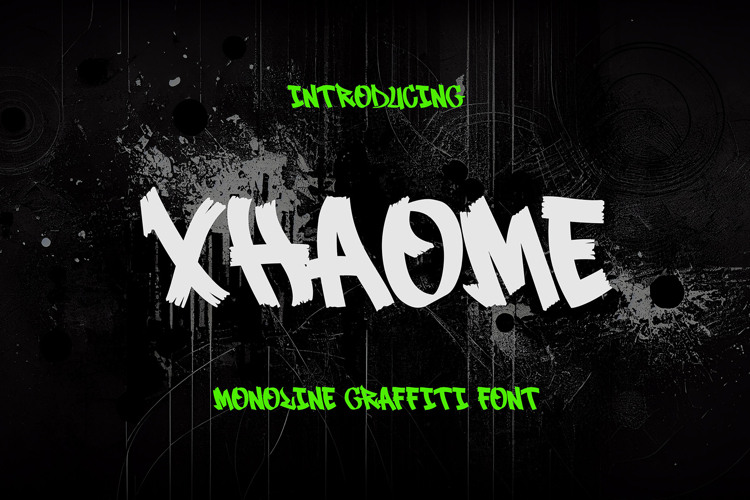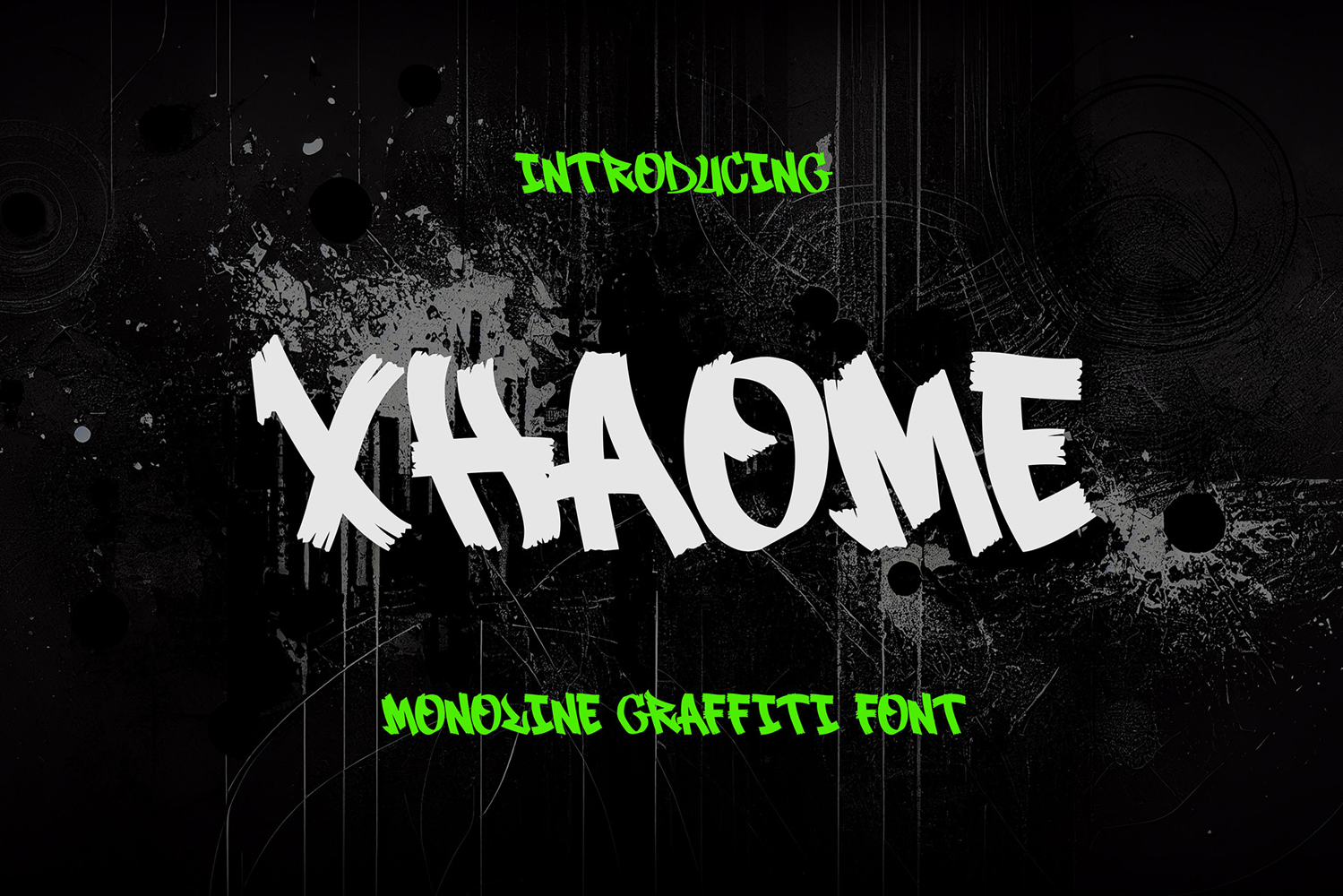
Xhaome - Expressive Graffiti Font
Elevate your designs to urban artistry with Xhaome – the expressive graffiti font that transcends boundaries and ignites creativity. Dive into a world where every stroke tells a story, every letter pulses with energy, and every design becomes a canvas for urban expression.
🎨 Urban Expression: Xhaome captures the raw essence of graffiti art with its expressive letterforms and bold strokes. From posters to digital artwork, this font injects your designs with an authentic urban edge, evoking the vibrant energy of city streets and underground culture.
🏙️ Cityscape Inspiration: Inspired by the dynamic cityscape and vibrant murals, Xhaome infuses your designs with the spirit of urban life. Whether for event promotions, social media graphics, or editorial layouts, this font adds an authentic urban vibe that resonates with modern audiences.
🔥 Unleash Your Creativity: Xhaome empowers you to push the boundaries of artistic expression in diverse projects. Its bold and expressive style captivates audiences and leaves a lasting impression, making it perfect for branding, signage, and digital designs that demand attention.
🌟 Youthful Appeal: Embrace the rebellious spirit of street culture with Xhaome. Its gritty urban aesthetic resonates with young, creative audiences across various industries, connecting with anyone seeking to infuse their designs with urban authenticity and attitude.
💡 Versatile Application: Xhaome is not confined to any particular niche. Its versatility allows it to shine in a multitude of projects, from editorial layouts to digital advertisements and beyond. Wherever creativity flows, Xhaome stands ready to make a bold statement.
🌆 Authentic Street Style: Whether you're an experienced designer or a newcomer to the world of graffiti art, Xhaome offers an authentic and dynamic style that captures the spirit of urban creativity. Its expressive letterforms command attention and inject vitality into any project.
Transform your designs into dynamic urban masterpieces with Xhaome – where graffiti meets typography, and creativity knows no bounds. It's time to make your mark on the world with this best-selling expressive graffiti font leading the way.